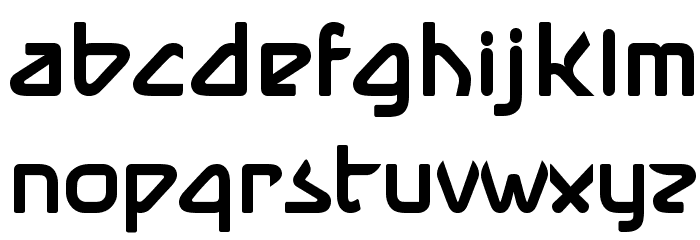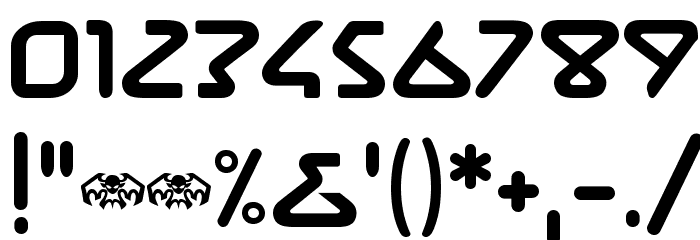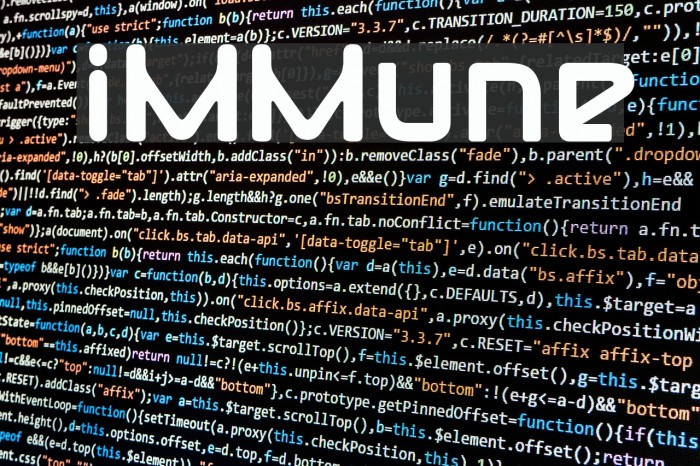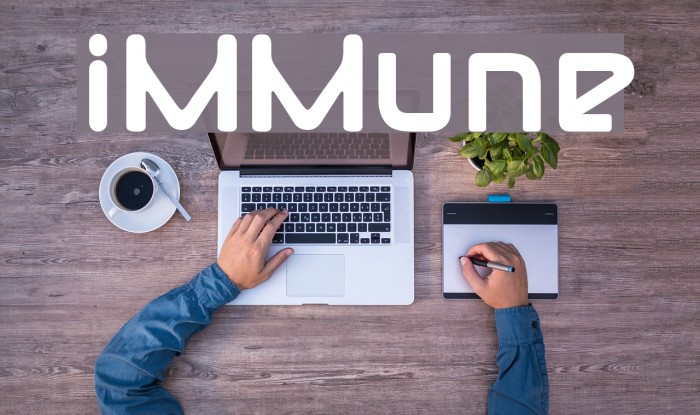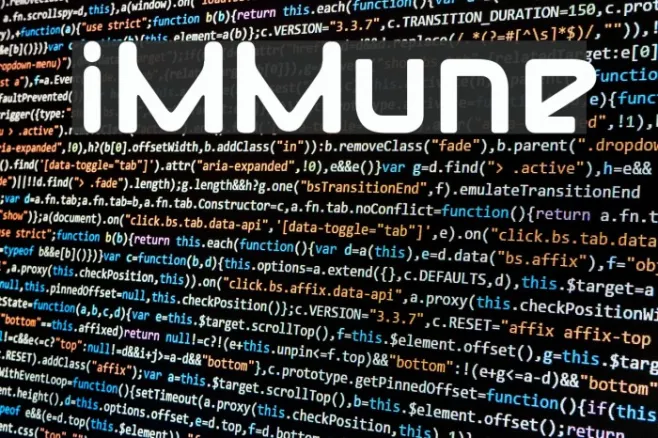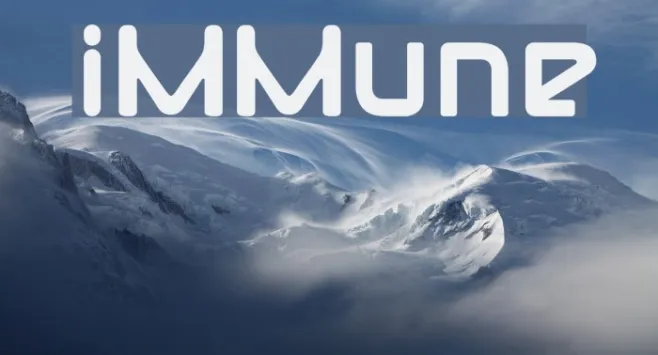
iMMune Font
This font features a bold and futuristic design with geometric shapes and sharp angles. The uppercase letters are particularly distinctive, with unique forms that give the typeface a modern and edgy appearance. The lowercase letters maintain a consistent style, complementing the uppercase with rounded edges and a slightly condensed form. Numbers are stylized to match the overall aesthetic, with angular cuts and a uniform thickness. Special characters are creatively designed, adding a playful touch to the font. The consistent stroke width throughout the characters provides a cohesive look, making it suitable for various design applications.
A bold, futuristic font with geometric shapes and sharp angles.
- Proposed Projects: Ideal for sci-fi themed projects, tech branding, video game titles, and modern posters.